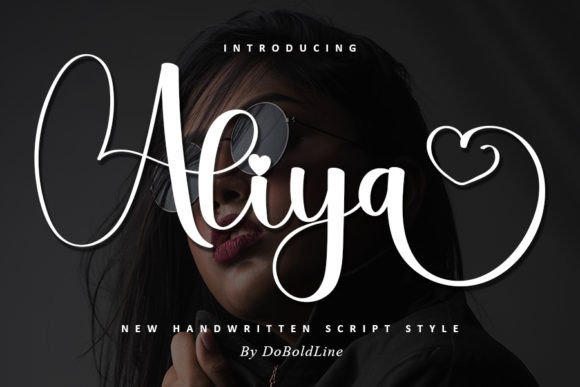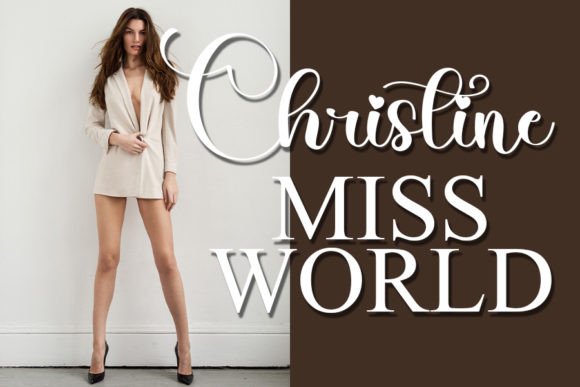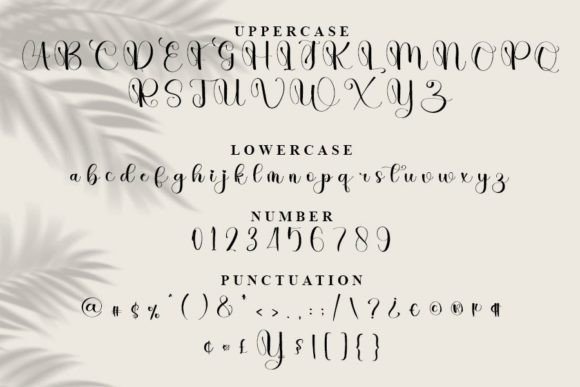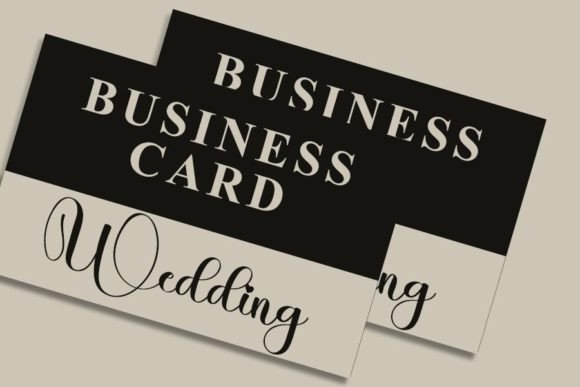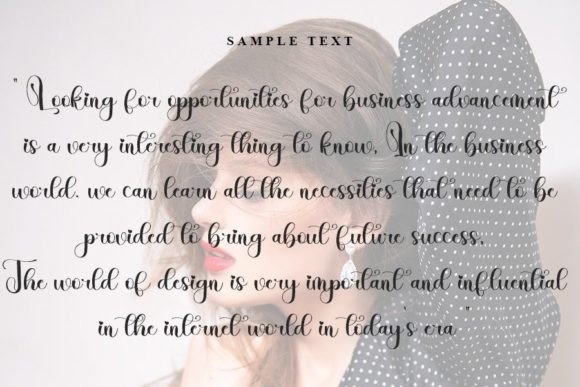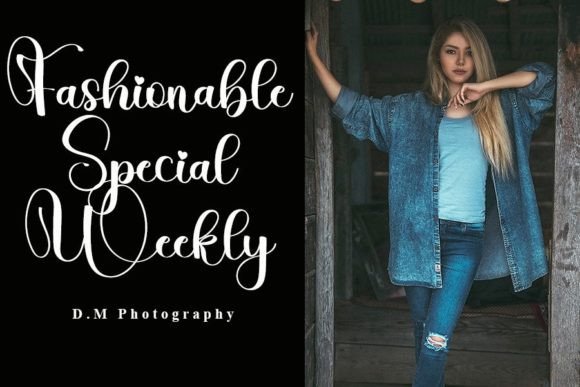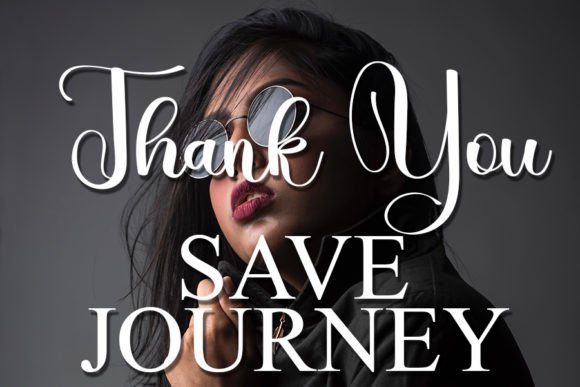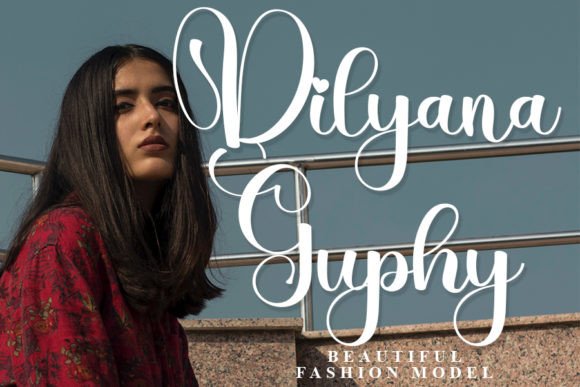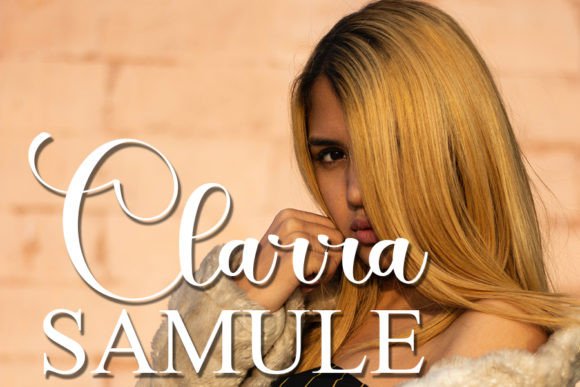
Aliya Font
About Aliya Font
“Aliya” is a sophisticated handwritten font that exudes a contemporary aura while embodying the timeless charm of classic calligraphy. Its design strikes a perfect balance between elegance and modernity, making it a versatile choice for various creative projects. The font’s well-crafted letterforms and varied style enhance the beauty of your designs, adding a touch of sophistication and uniqueness.
One of the notable features of “Aliya” is its PUA (Private Use Area) encoding, which allows easy access to a wide range of amazing glyphs and ligatures. This feature provides designers with enhanced flexibility and creativity, enabling them to create visually captivating and distinctive typographic compositions.
Incorporating “Aliya” into your projects will not only enhance their aesthetic appeal but also add a sense of refinement and sophistication. Whether you’re working on branding, invitations, logos, social media posts, or any other design endeavor, “Aliya” offers a classy and timeless touch that elevates your creations to new heights.
Take advantage of the font’s PUA encoding to explore its extensive set of glyphs and ligatures, allowing you to customize your designs and create unique typographic masterpieces. With “Aliya,” your projects are sure to stand out, leaving a lasting impression on your audience.